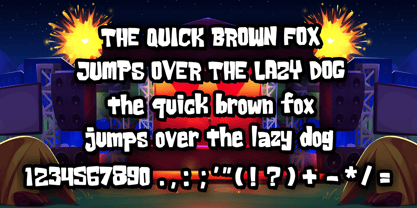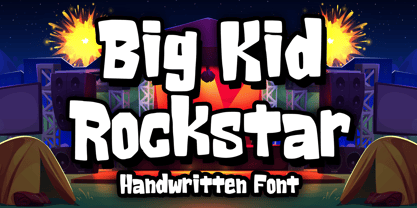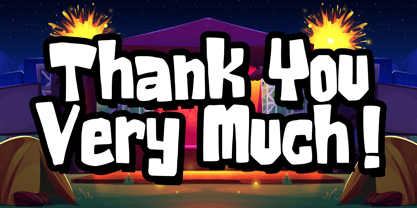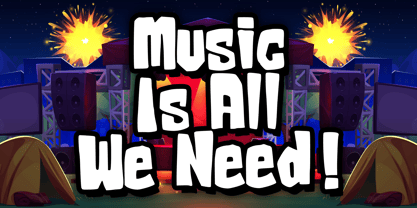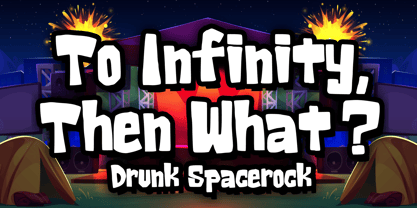
Big Kid Rockstar
by Mvmet
The Big Kid Rockstar Font Family was designed by Gabriel Valentinus and published by Mvmet. Big Kid Rockstar contains 1 styles.
Big Kid Rockstar is a fun, playful decorative font, it suitable for your festive themed designs. It will elevate a wide range of design projects to the highest level. You can use this font for many design ideas such as stickers, t-shirt designs,merchandise designs, amazing logo designs, magazine or book covers, comics, cartoon drawings, daily typing, and many more. This font will add a super cool touch to your designs!
Designers: Gabriel Valentinus
Publisher: Mvmet
Foundry: Mvmet
Design Owner: Mvmet